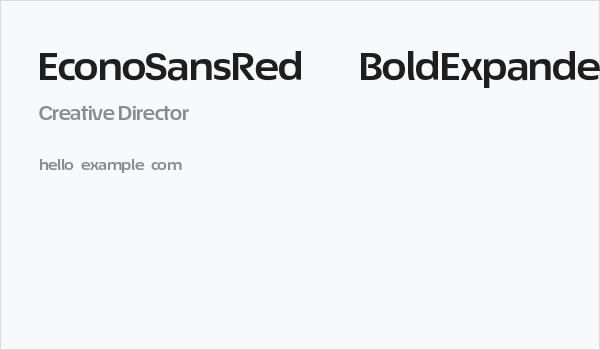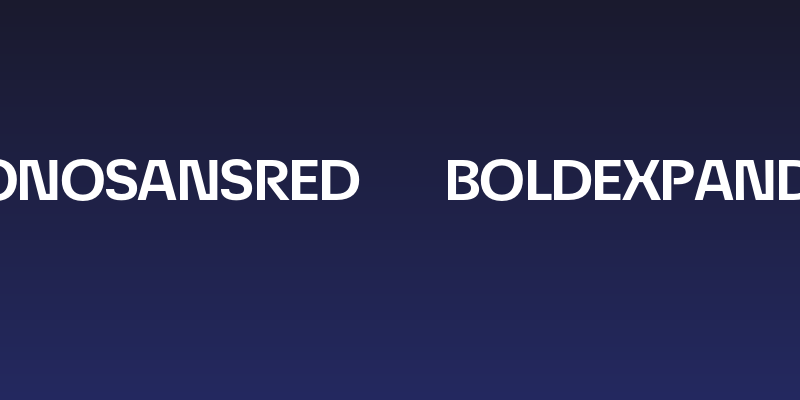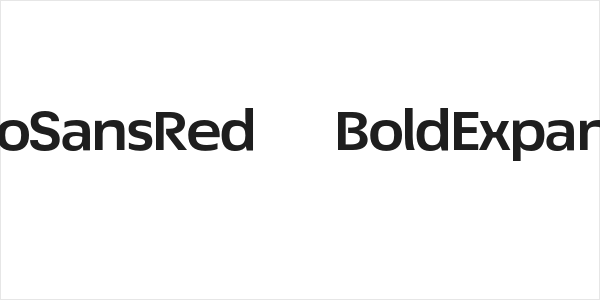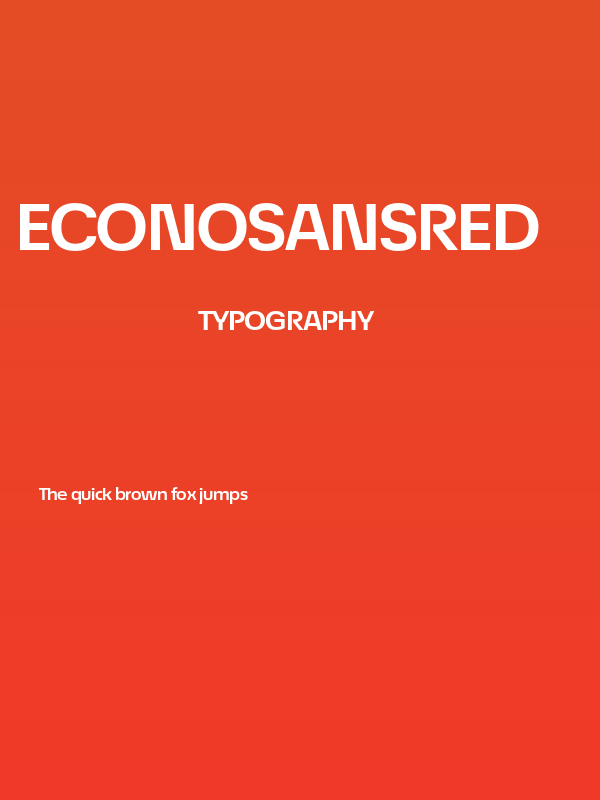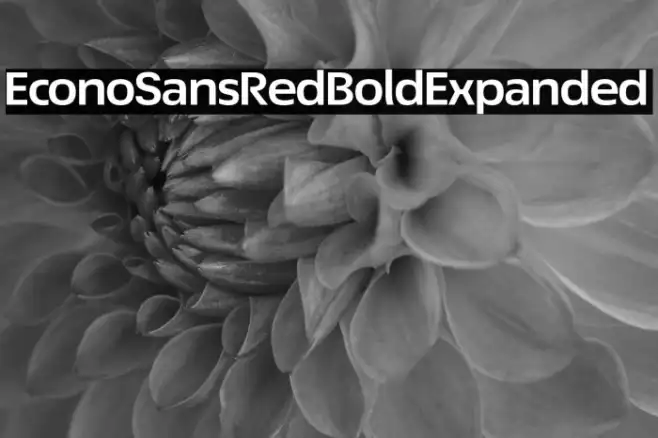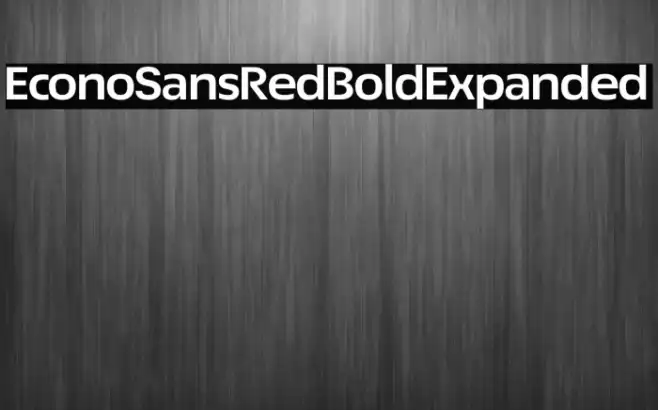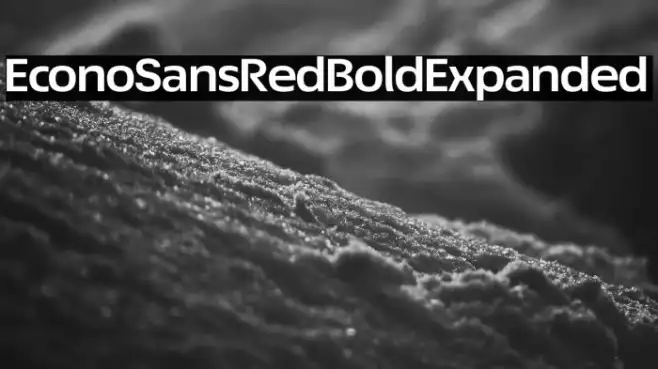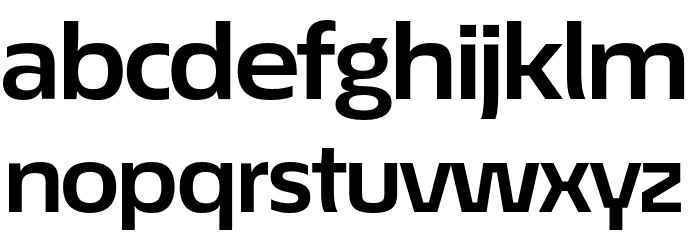
EconoSansRed-73BoldExpanded Font
EconoSansRed-73BoldExpanded Description
This font exhibits a bold and expanded style, characterized by its strong, clean lines and modern aesthetic. The uppercase and lowercase letters are well-balanced, with a uniform stroke width that conveys a sense of stability and confidence. The font's expanded width allows for excellent readability, making it suitable for both digital and print media. Its geometric shapes and consistent proportions give it a contemporary feel, while the lack of serifs adds to its sleek, minimalist appearance. The font's design is versatile, making it ideal for a variety of applications, from branding to editorial design.
| Proposed Projects | Ideal for branding, advertising, headlines, and digital media projects. |